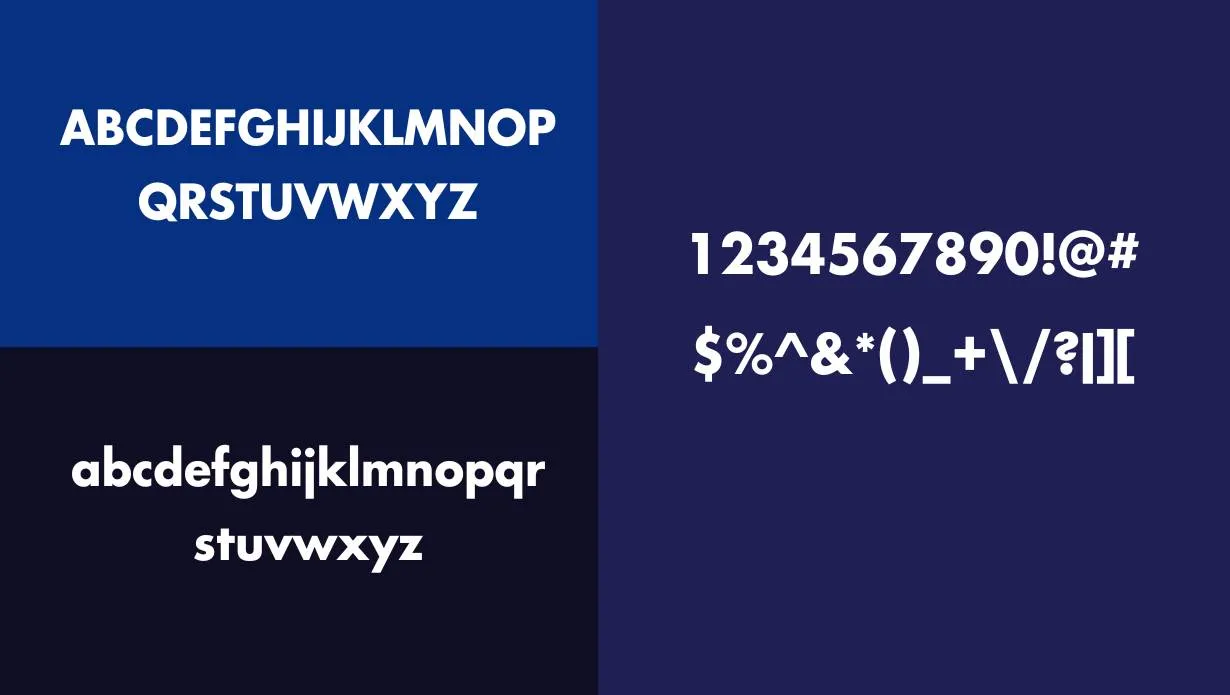
The Architype Renner font is popular for its modern and clean look, making it a great choice for designs that require a sleek and professional appearance. Its straightforward letters give off a contemporary and polished vibe.
This font is commonly used in logos, editorials, or architectural publications. The weight of the Architype Renner font is usually medium, offering a balance between presence and readability.
| Name | Architype Renner Font |
| Designer | Paul Renner's |
| Style | Sans serif |
Its width is typically standard, allowing for clear text in various applications, especially in titles or captions.